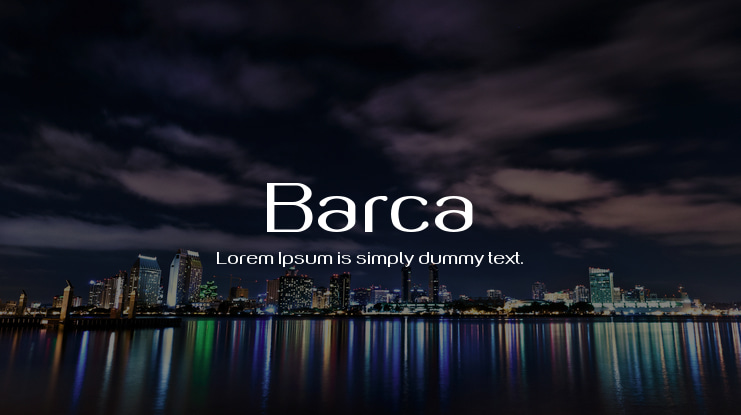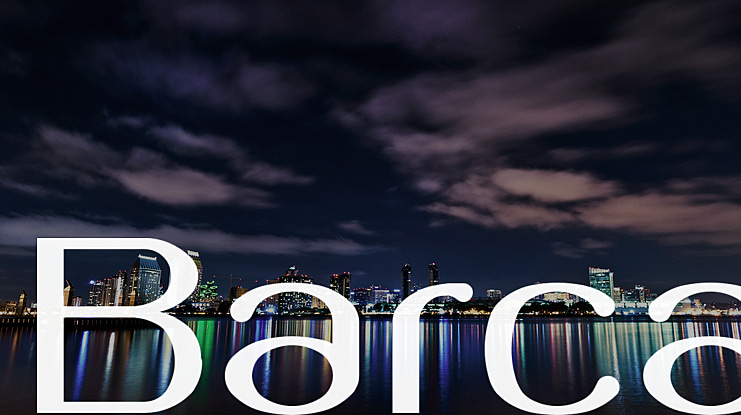
Barca Font
Barca is a sans serif typeface with a natural and elegant charm. To characterize the typeface is the absence of many terminals â such as the small section placed at the end of "n" â compensa- ted trough the flattening of the glyphs'curves near the axes. Barca is suitable not only for large text settings, such as books and magazines, but also for logos and advertising in general.